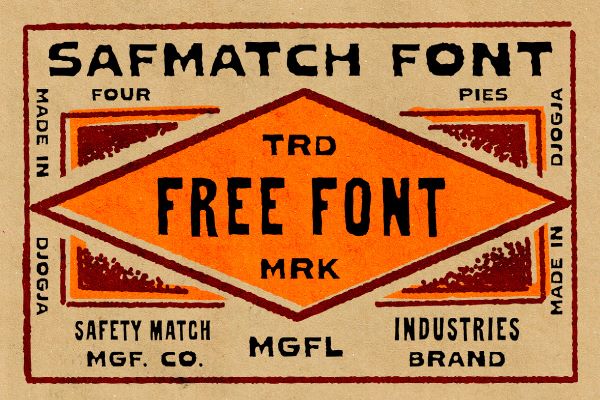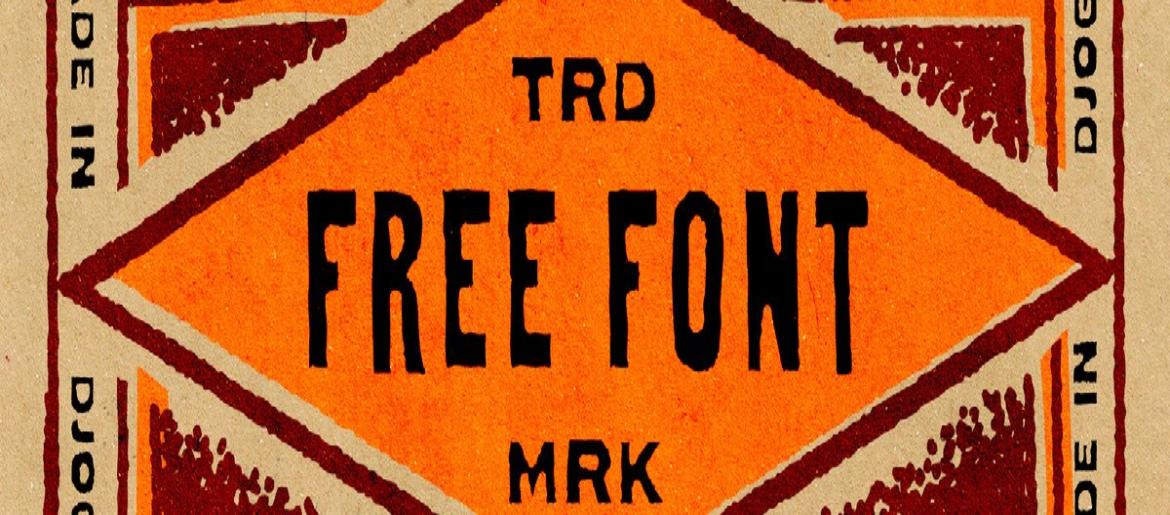
Safmatch Font
Safmatch by Fahrenno Asnawan is a handmade display typeface from Yogyakarta, Indonesia-based designer Fahrenno Asnawan — published on March 26th, 2026, making it literally the most recently released font in this entire collection. The concept is specific and evocative: the letterforms are inspired by the raw, imperfect lettering found on safety match packaging from the 1980s and 90s — that particular era of hand-drawn label typography where rough edges, uneven strokes, and a handcrafted energy gave everyday objects an unmistakable visual character. It supports multilingual character sets and is released under a Standard Commercial License, free for personal and commercial use.